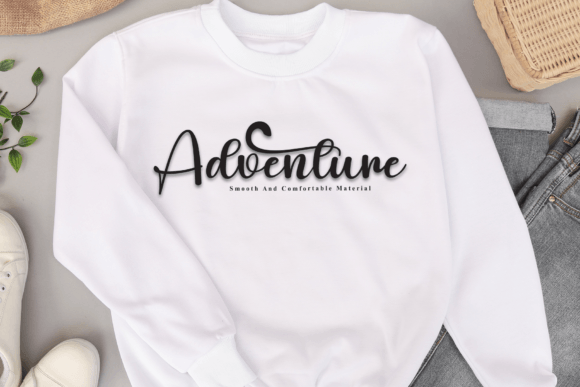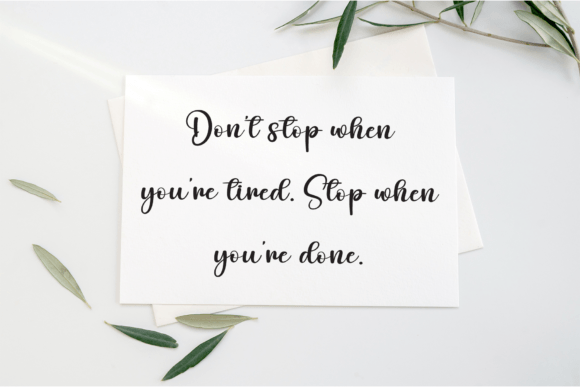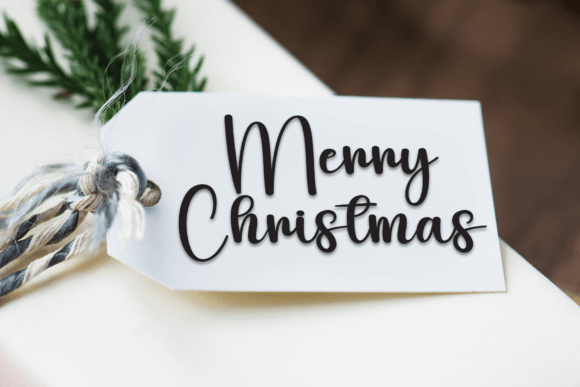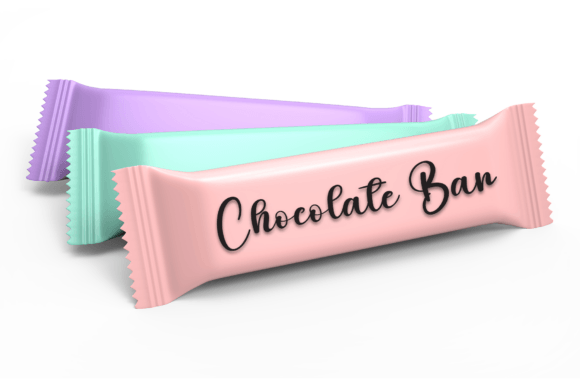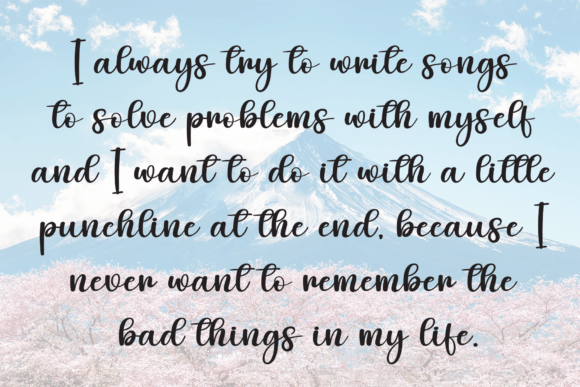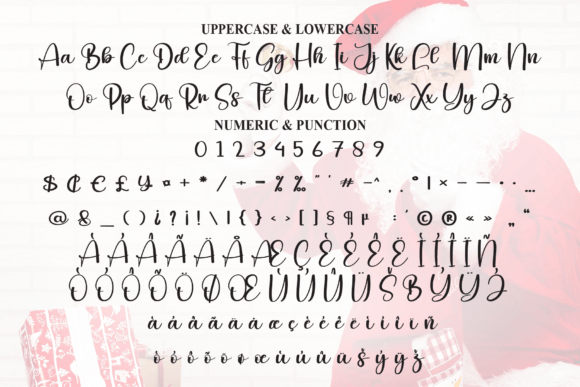
Introducing Delight Santa Font: The Perfect Addition to Your Design Collection
Are you tired of using the same old fonts in your designs? Do you want to add a touch of warmth and personality to your projects? Look no further than Delight Santa Font, a charming handwritten font that’s sure to capture the hearts of designers and crafters alike. In this article, we’ll take a closer look at what makes Delight Santa Font so special and how you can use it to elevate your designs.
A Cozy and Relaxed Feeling
Delight Santa Font is a beautifully crafted handwritten font that exudes a cozy and relaxed feeling. Its playful letters have a warm, friendly vibe that’s perfect for creating personal notes, invitations, or any other project that needs a touch of warmth. Whether you’re designing a holiday card, a party invitation, or a simple note to a friend, Delight Santa Font is the perfect choice.
One of the things that sets Delight Santa Font apart from other fonts is its unique style. The soft curves and casual look of the font give it a friendly, approachable feel that’s hard to resist. It’s like a friendly wave goodnight – warm, comforting, and inviting.
Perfect for Personal and Creative Projects
Delight Santa Font is perfect for designers and crafters who want to add a personal touch to their projects. The font is ideal for a wide range of applications, including:
- Personal notes and letters
- Invitations and party cards
- Holiday cards and gift tags
- DIY crafts and scrapbooking
- Blogging and social media graphics
Whether you’re creating something for personal use or for a client, Delight Santa Font is sure to add a touch of warmth and personality to your design.
Key Features of Delight Santa Font
So, what makes Delight Santa Font so special? Here are just a few of its key features:
- Handwritten font with a warm, friendly vibe
- Soft curves and casual look for a cozy feel
- Unique style that’s perfect for personal and creative projects
- Easy to read and use in a variety of applications
- Perfect for holiday and seasonal designs
Tips for Using Delight Santa Font
Now that you know more about Delight Santa Font, here are a few tips for using it in your designs:
- Pair it with other fonts: Delight Santa Font pairs well with other handwritten fonts, as well as serif and sans-serif fonts.
- Use it for headings and titles: The font is perfect for headings and titles, but can also be used for body text.
- Experiment with colors: Delight Santa Font looks great in a variety of colors, from bright and bold to soft and pastel.
- Use it for DIY crafts: The font is perfect for DIY crafts, such as scrapbooking, card making, and gift tagging.
Delight Santa Font is a charming handwritten font that’s perfect for designers and crafters who want to add a touch of warmth and personality to their projects. With its unique style, soft curves, and casual look, it’s the perfect choice for personal notes, invitations, holiday cards, and more. Whether you’re a seasoned designer or a crafty DIY enthusiast, Delight Santa Font is sure to become a favorite in your collection.